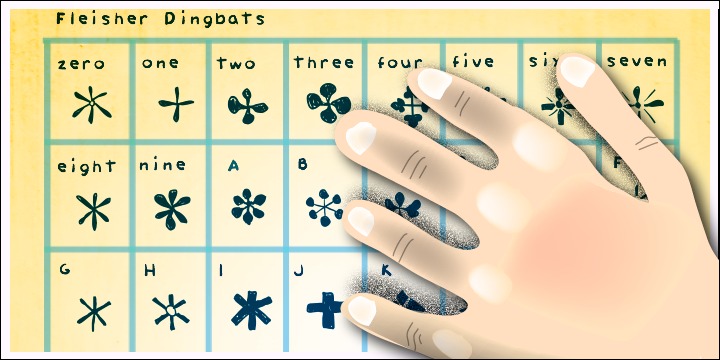
Created in 2010 by V.H. Fleisher, the Fleisher Dingbats font is hand-drawn. All the ornaments are mapped to numbers and letters on a standard keyboard (see the PDF file, Fleisher Dingbats Map, in gallery images).
Fleisher Dingbats